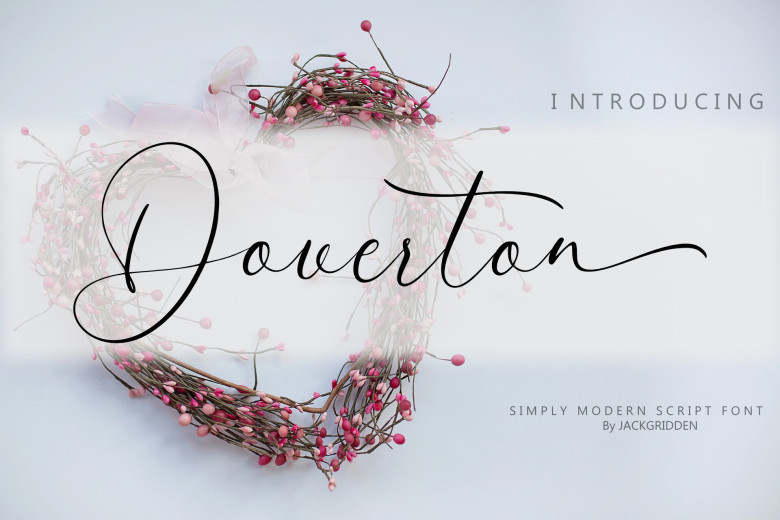
Doverton Font
Doverton is an original handwritten font, which will add charm and exclusivity to your work – Doverton. Largely curved and with smooth aerodynamic lines, Doverton is perfect for expressing individuality and thus is ideal for many artistic applications. From invitations, brand identity, to the post on social media, the quirkiness of Doverton makes it easy to recognized with that personal touch.
The font is easily readable and still very creative so not only will your recipient understand what you are getting across, it will also look aesthetically pleasing.
Doverton Handwritten Font